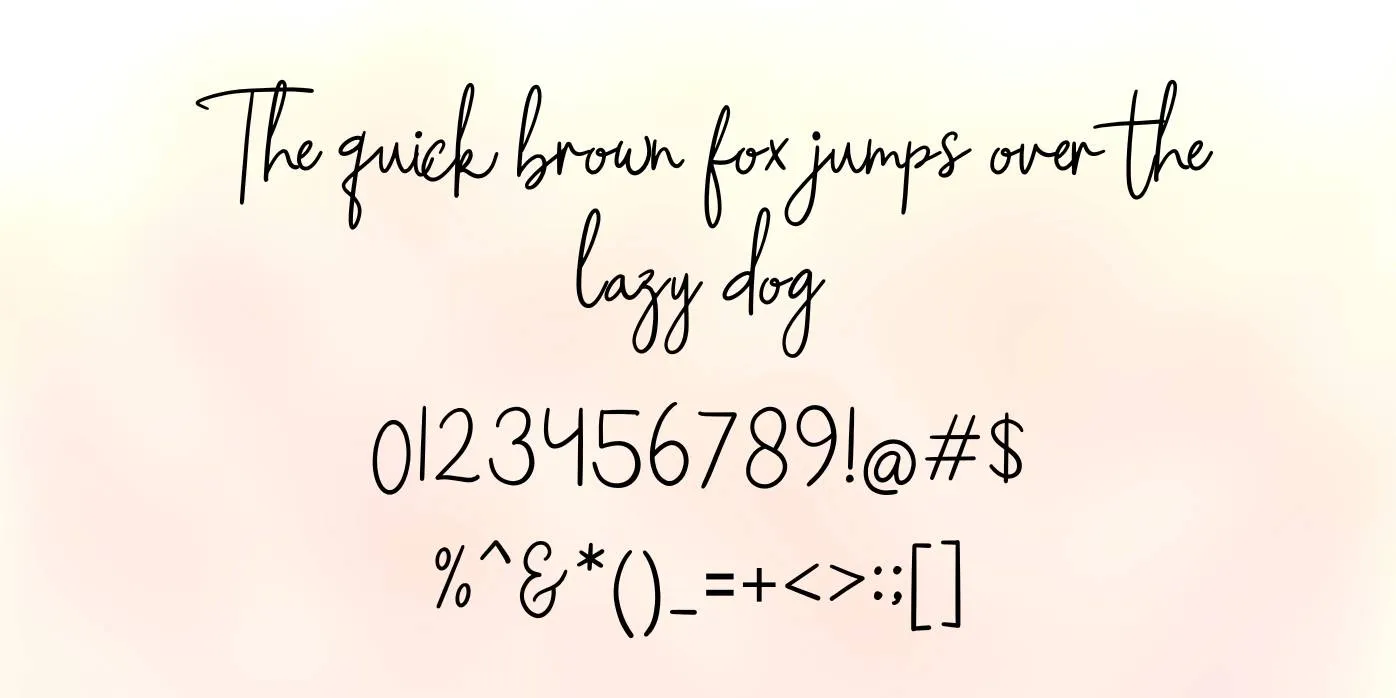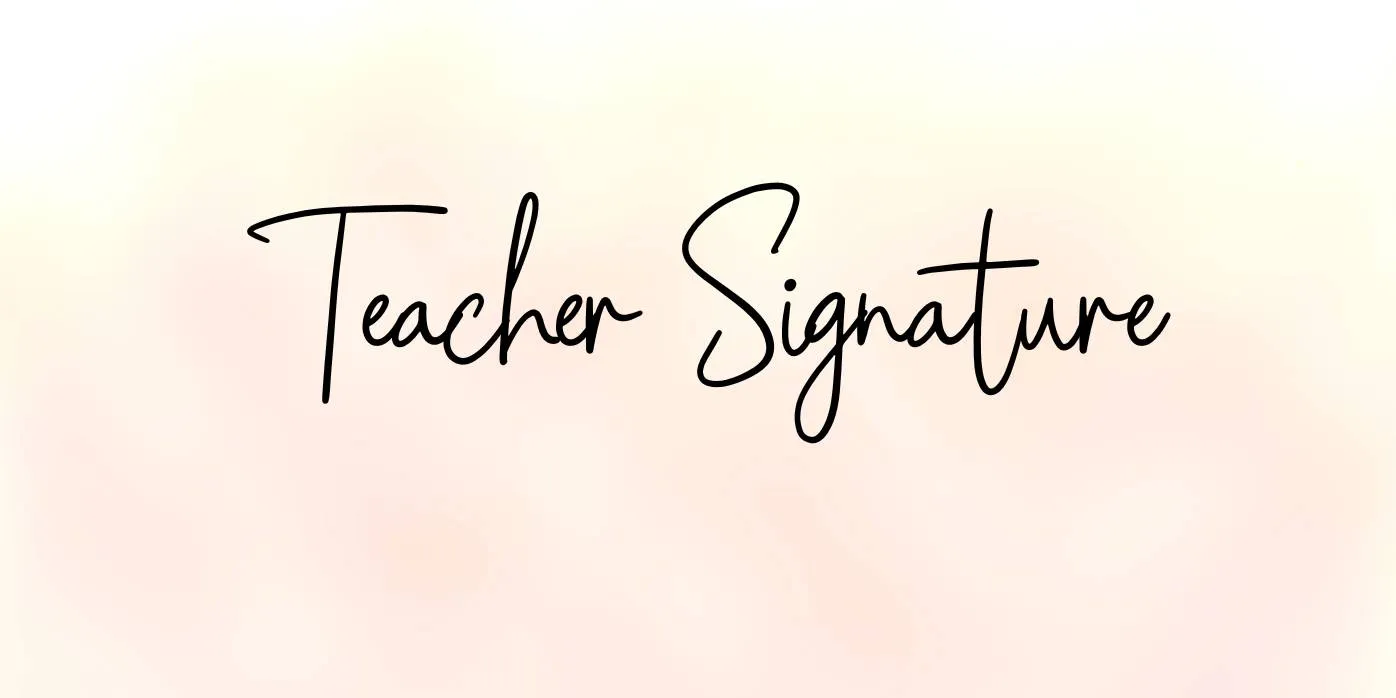
Teacher Signature Font
Teacher Signature Font can make so many different projects by using this font. It was designed by Najmus Tsaqib. It contains 194 characters, 104 glyphs, and 1000 units per Em. The weight of the font is light and its width is medium(normal).
An online generator tool also supports this font in which you can copy and paste your text and convert it into a stylish look even without downloading the font. You can do this process online even without downloading the font. You can also pair this font with other fonts like restu font to give a more attractive and stylish look to your projects. Usage It is a very classy font and can be used to design many different projects.
You can make beautiful Logos and tiles by using this font. It has small letters, capital letters, punctuations, symbols, characters, numbers, and special characters. It can be used to design wedding invitations, greeting cards, birthday cards, and other invitation cards. This amazing font is also good for designing theme-based parties in school or collages.
It is a very suitable choice for both print and digital media. You can make attractive book covers, magazine covers, and other stationary art by using this font. You can also make or edit designs with different graphic applications like Adobe Photoshop, CSS, and Canva. Different types of website designs and graphic designs can also be made with this font.
What type of font is Teacher Signature font? It is a very beautiful handwritten font and can be used to design many different projects. Its style is very stylish and modern. How can I get the Teacher’s Signature Font?